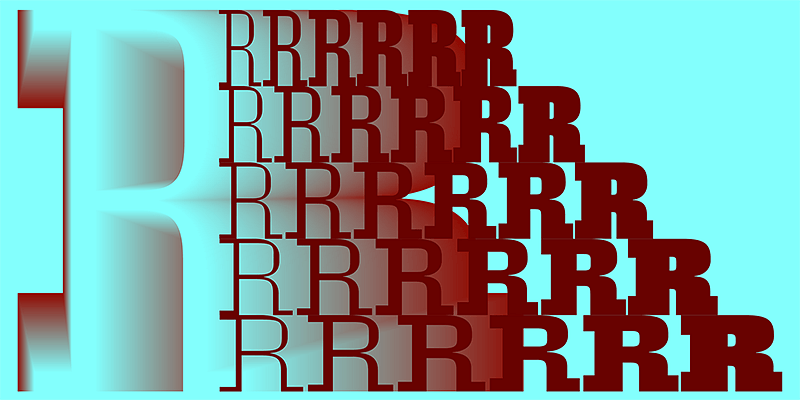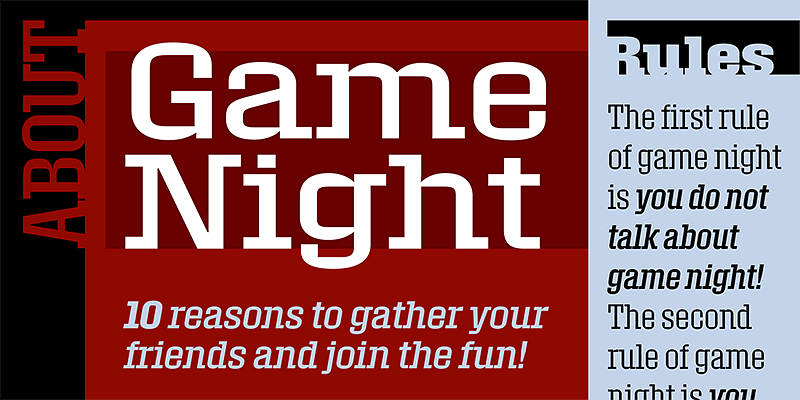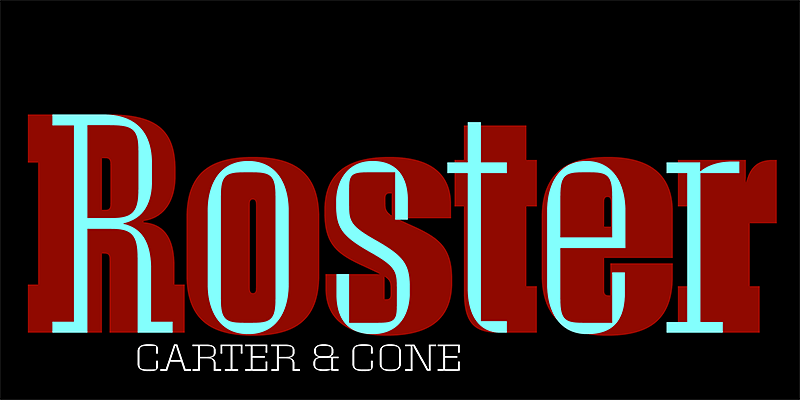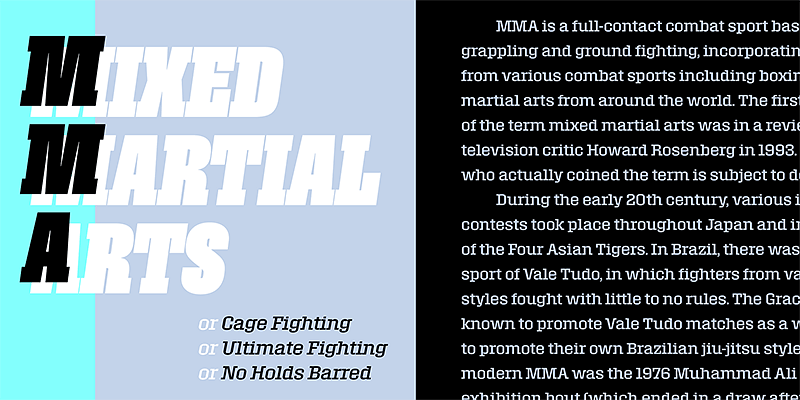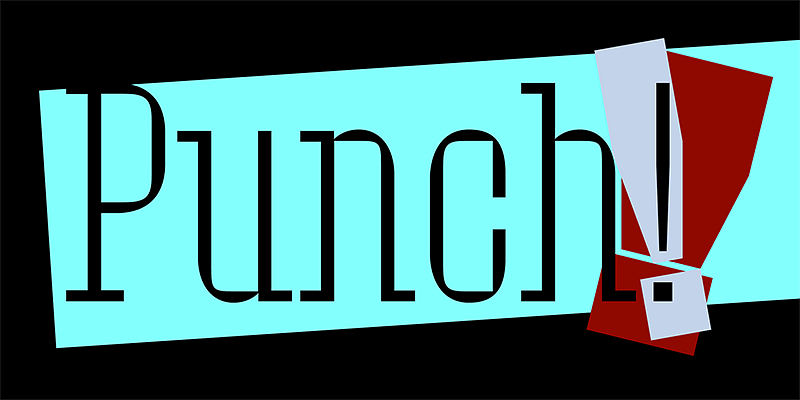
When Matthew Carter and Jesse Ragan designed Roster, they took the visual tension of squared corners within rounded shapes to an extreme. Its outer shapes are large, curved rectangles; the inner shapes have the chisel-cut clarity of counters carved out of the letterforms. The effect, subtly seen in a text face, is a dramatic slab serif display family. It can be used in smaller sizes, but the real flex is to go big. Carter & Cone’s Roster comprises 60 styles — 6 weights, 5 widths, plus Italics.
Carter & Cone has designed some of the world’s most celebrated typefaces and award-winning custom fonts. Elegant, balanced, useful: these words describe the fonts produced by Matthew Carter and Cherie Cone’s partnership. While their early work forms the bedrock of modern typography, their newer typefaces continue to enrich and expand it. The consistency and thoroughness of their designs are a direct result of their early training in industries without an undo, like punchcutting and calligraphy.